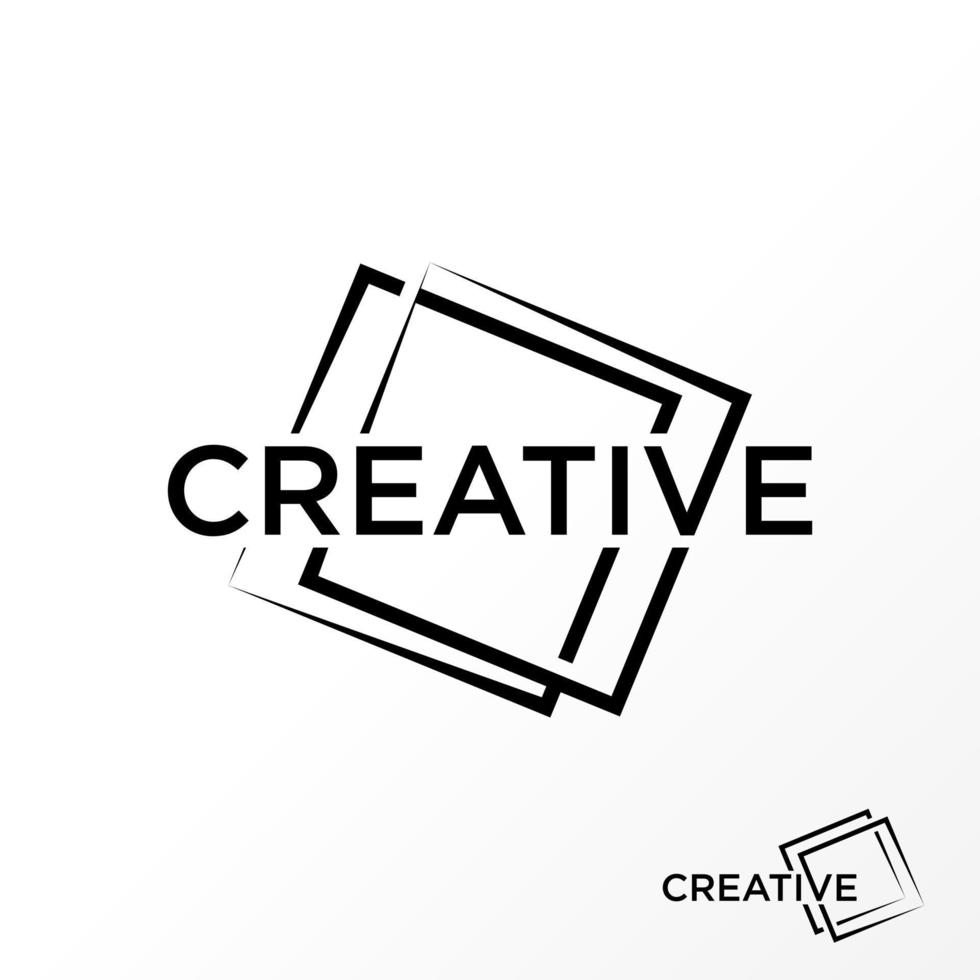
Letter or word CREATIVE sans serif font with double line square image graphic icon logo design abstract concept vector stock. Can be used as a symbol related to innovation or initial Pro Vector